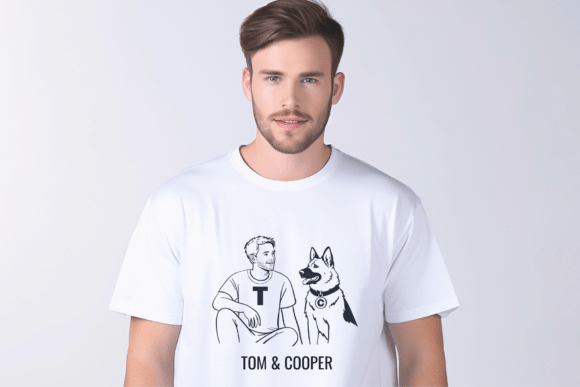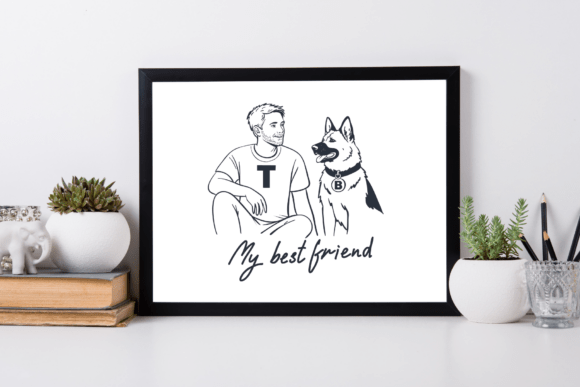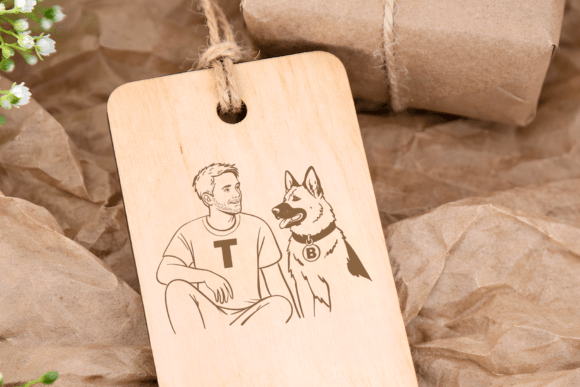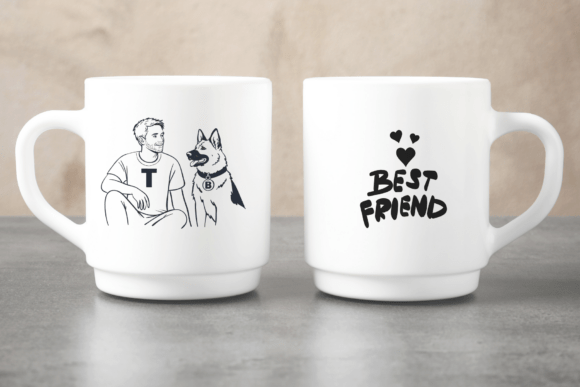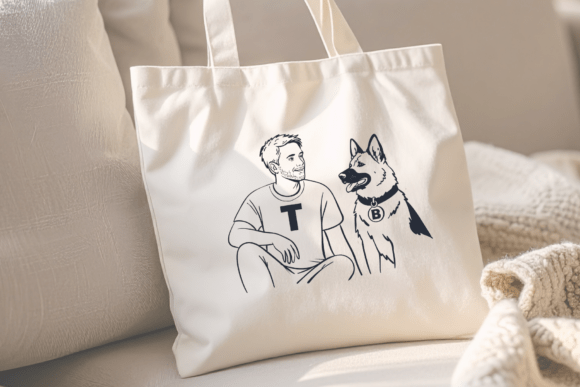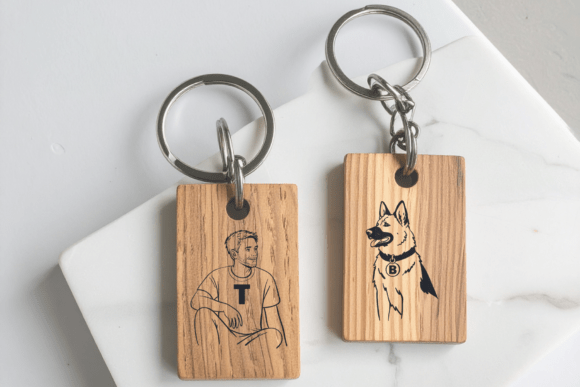
Introducing the Dog and Owner Monogram Font: A Heartwarming Collection for Pet Lovers
Are you a pet lover looking for a unique and personalized way to express your love for your furry friend? Do you want to create custom gifts, t-shirts, mugs, and stickers that showcase your special bond with your dog? Look no further than the Dog & Owner Monogram Bundle A-Z, a heartwarming font collection designed specifically for pet enthusiasts like you.
What is the Dog & Owner Monogram Bundle A-Z?
This adorable font collection features line art of a dog and owner with personalized initials, making it the perfect addition to any design project. The bundle includes a comprehensive A-Z alphabet set, ensuring that you can create monograms with any name or initials. Whether you’re a dog mom or dad, this font collection is ideal for creating custom gifts, decorations, and DIY projects that celebrate your love for your pet.
Key Features of the Dog & Owner Monogram Bundle A-Z
- A-Z Alphabet Set: The bundle includes a complete A-Z alphabet set, allowing you to create monograms with any name or initials.
- Perfect for Pet Lovers & Dog Dad Gifts: This font collection is specifically designed for pet lovers and dog owners, making it the perfect choice for custom gifts, decorations, and DIY projects.
Uses for the Dog & Owner Monogram Bundle A-Z
The Dog & Owner Monogram Bundle A-Z is incredibly versatile and can be used for a variety of design projects, including:
- Custom Gifts: Create personalized gifts, such as t-shirts, mugs, and stickers, that showcase your love for your pet.
- DIY Projects: Add a personal touch to your DIY projects, such as scrapbooking, card making, and home decor, with this unique font collection.
Why Choose the Dog & Owner Monogram Bundle A-Z?
So why choose this font collection over others? Here are just a few reasons:
- Unique and Heartwarming Designs: The Dog & Owner Monogram Bundle A-Z features adorable line art of a dog and owner with personalized initials, making it a one-of-a-kind font collection.